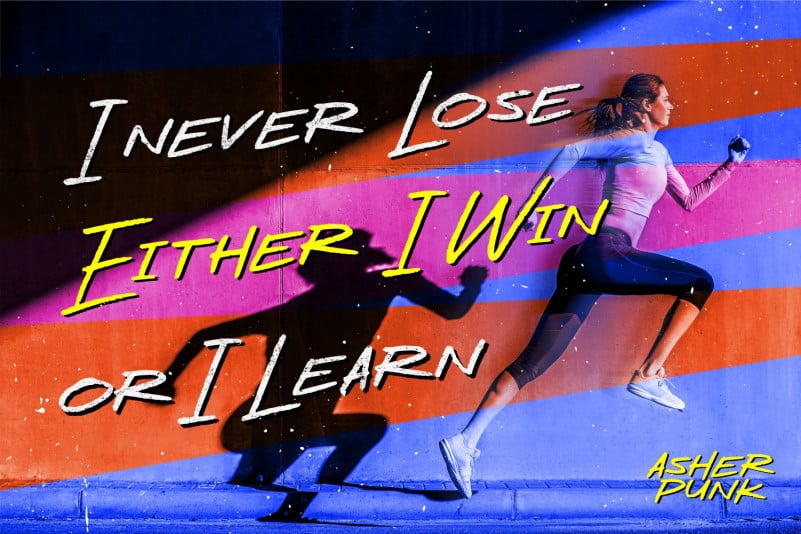
Asher Punk Display Font
Asher Punk Display Font is a simple and trendy display font. This original look will appeal to a wide range of crafty ideas, from letterheads and titles, to stationery.